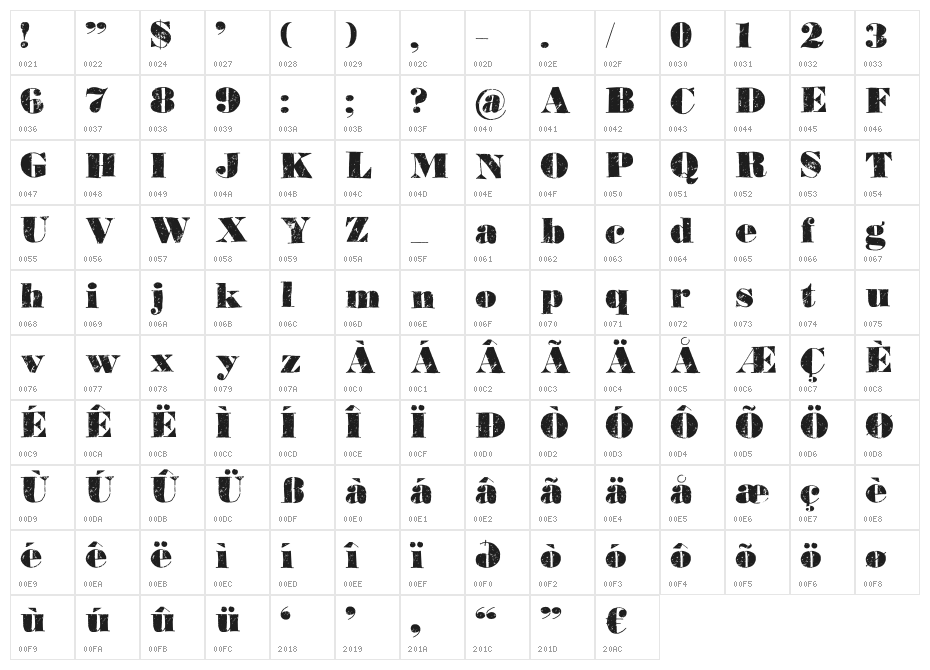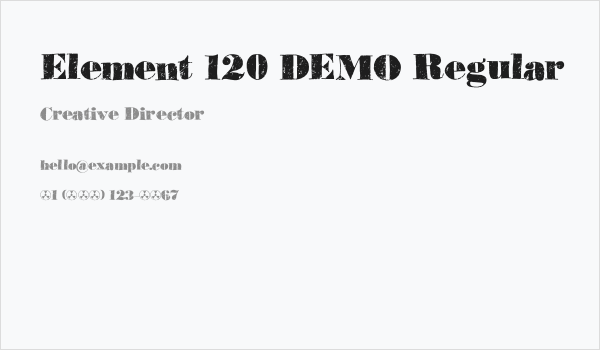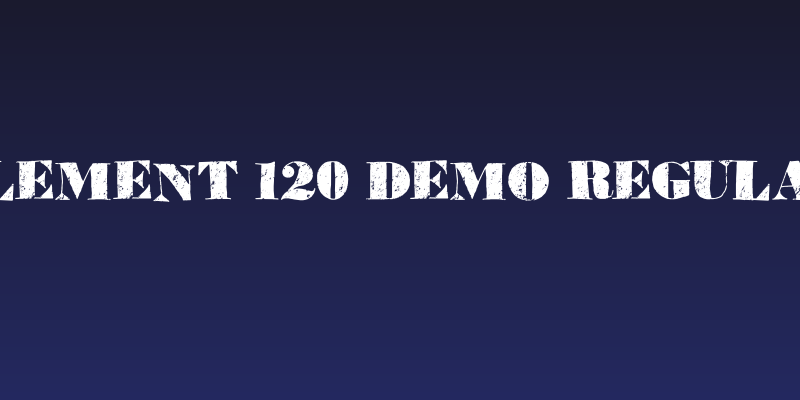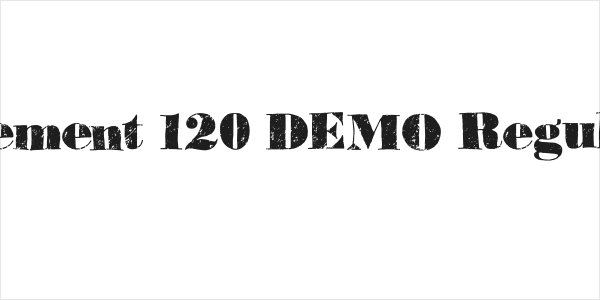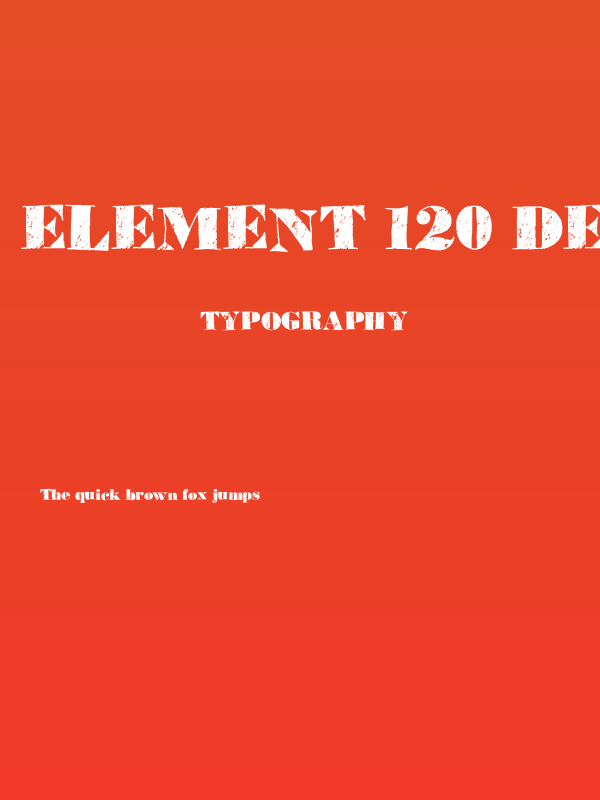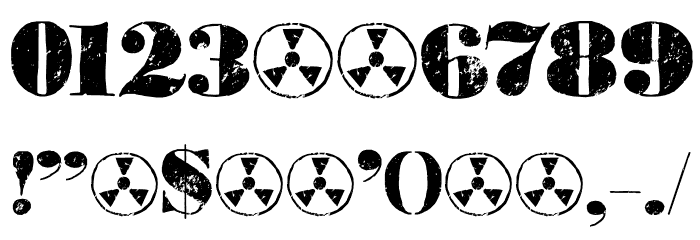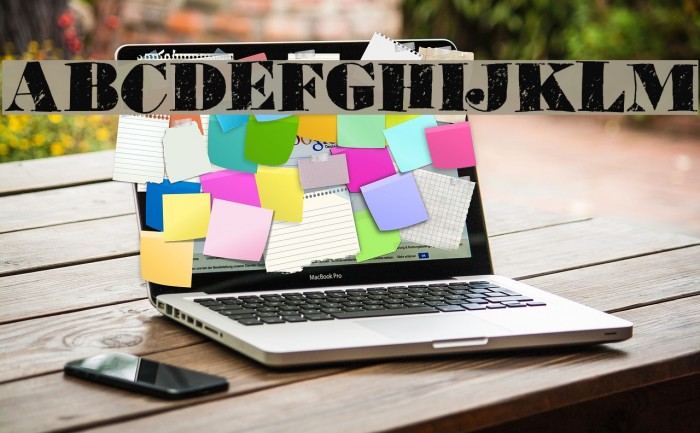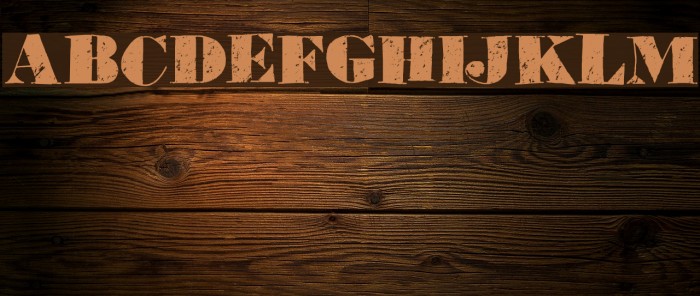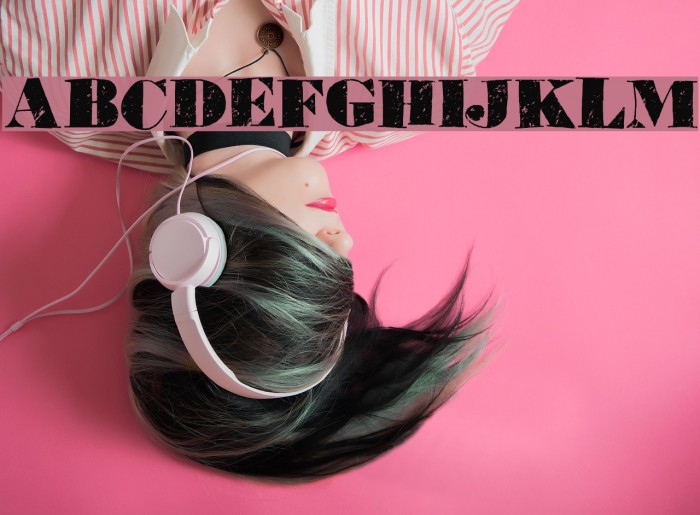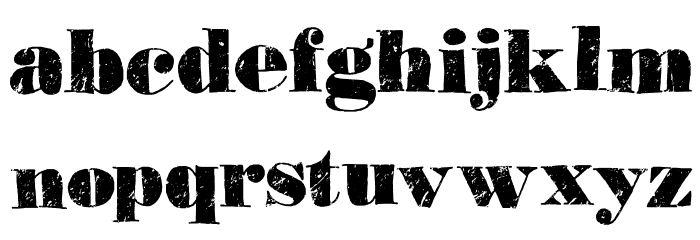
Element 120 DEMO Regular Font
Element 120 DEMO Regular Description
This font features a bold and distressed style, characterized by a rough, textured appearance that gives it a rugged and industrial feel. The uppercase and lowercase letters maintain a consistent weight, with thick strokes and sharp serifs. The numbers and special characters follow the same distressed pattern, adding to the overall cohesive look. The unique design incorporates a grunge aesthetic, making it stand out with its bold presence. This font is ideal for projects that require a strong, impactful visual statement.
| Overall Style | Grunge, Industrial |
| Proposed Projects | Ideal for posters, album covers, branding for edgy or alternative products, and any design needing a strong, impactful look. |